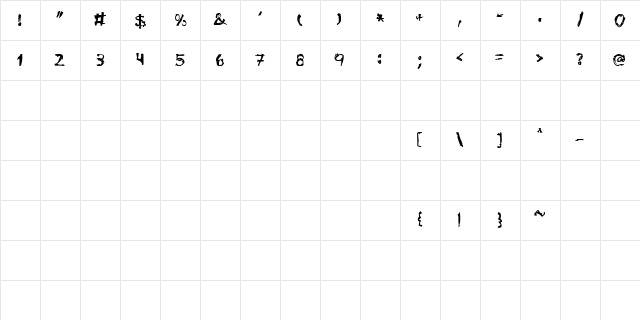
Anarchy Regular Free Font
Anarchy Regular
Design Context for Anarchy
Anarchy is a composed and adaptable typeface that performs quietly and consistently across a wide range of design contexts.
Pro Tip: Use Anarchy in both headline and body roles to test its range before committing to a single application.